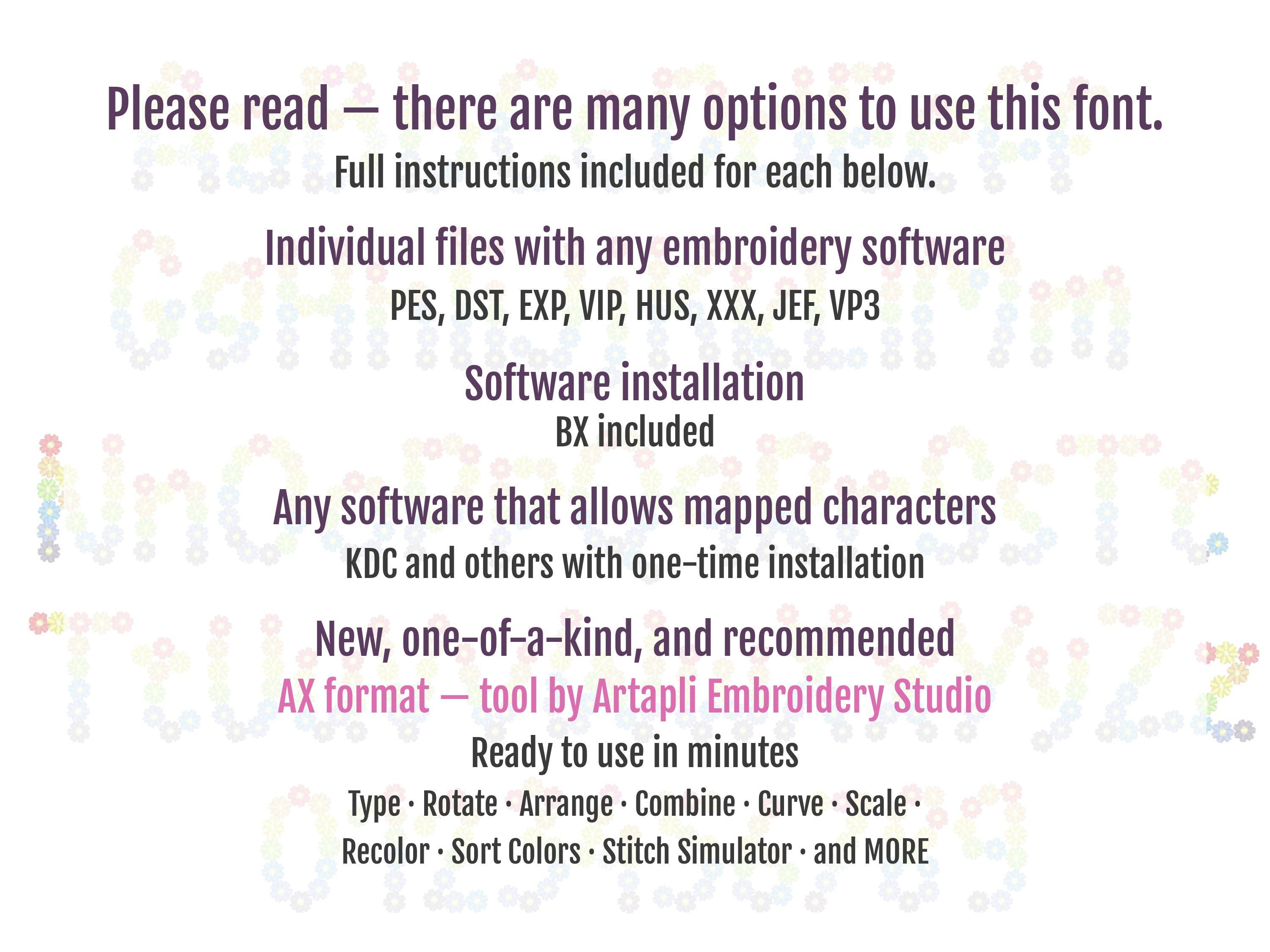
Rainbow daisies Country Floral Font whole entire alphabet garden flag liberty monogram flower flowered Font machine embroidery designs
Entire: uppercase and lowercase letters Aa-Zz, and numbers 0-9.